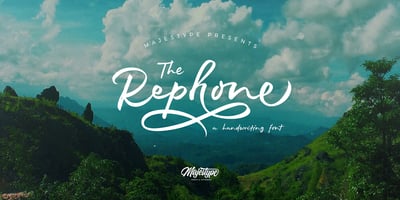
Rephone Font Family was designed by Dexsar Harry Anugrah and published by Majestype. Rephone contains 3 styles and family package options. Rephone is a handwriting font that has a force and rush personality but still beautiful. Each letter was made with love so that it can work well with one another. Rephone are designed to work well on the design like invitation, clothing, photography, branding, album covers, signature and the style that can work well with this font. Rephone support Multiple Language & OpenType features, that can allow you to choose a character that you like and suitable for the project you’re working on.